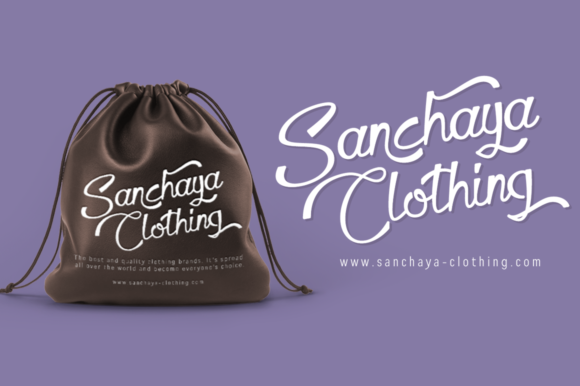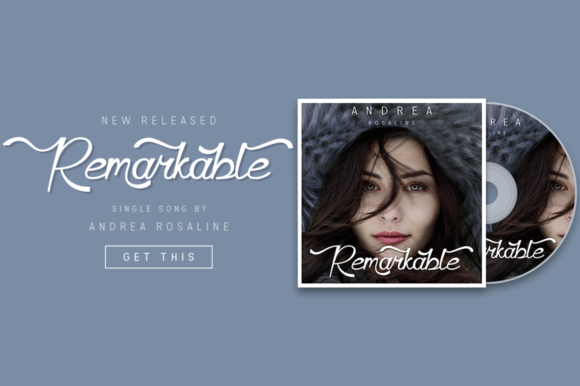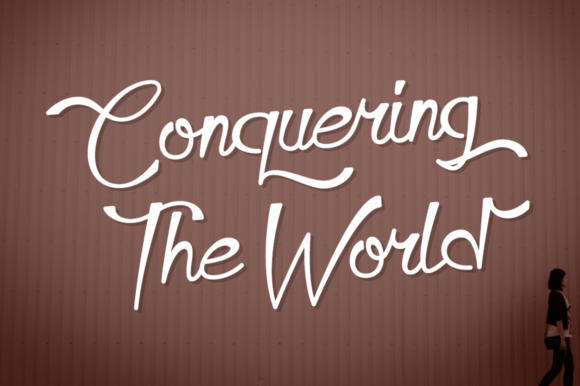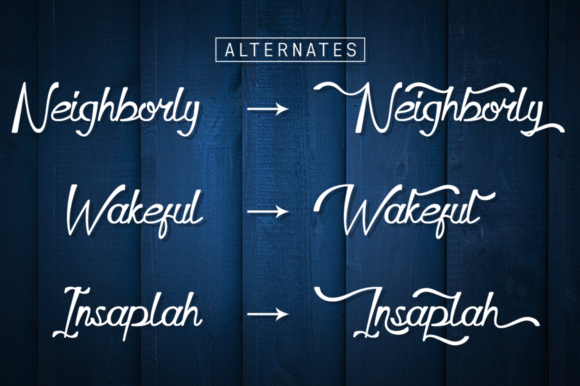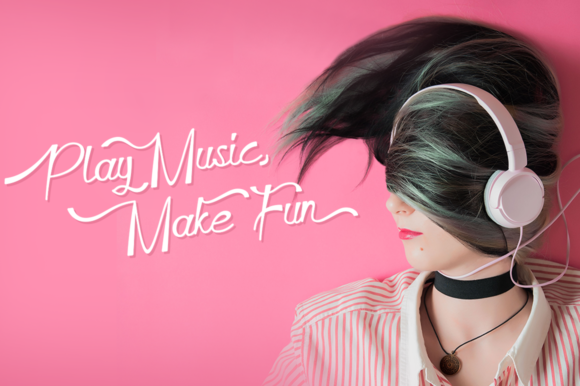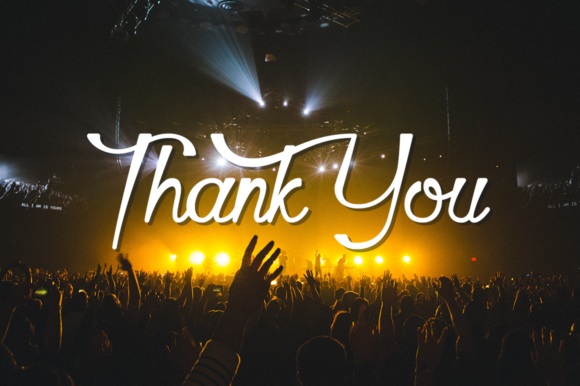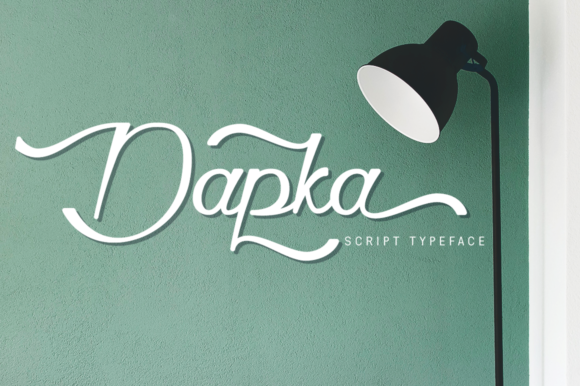
Dapka Font: Elevate Your Designs with a Unique Calligraphic Script
In the world of typography, a well-chosen font can make all the difference in the success of a design project. For designers and crafters looking to add a touch of elegance and sophistication to their work, the Dapka Font is an excellent choice. This beautiful calligraphic script offers a wide range of typographic forms that can be used in various design projects, from logos and branding to wedding designs, product packaging, and more.
What is Dapka Font?
Dapka Font is a unique calligraphic script that boasts stunning typographic forms. Its elegant and flowing lines make it perfect for designs that require a touch of sophistication and refinement. The font’s versatility allows it to be used in a wide variety of projects, including:
- Logos & branding: Create a lasting impression with a custom logo that showcases your brand’s personality.
- Wedding designs: Add a romantic touch to your wedding invitations, stationery, and decorations.
- Handwritten quotes: Bring your favorite quotes to life with beautiful, handwritten typography.
- Product packaging: Elevate your product’s packaging with a unique and eye-catching design.
- Headers: Create stunning headers for your website, blog, or social media channels.
- Posters: Design eye-catching posters that grab attention and convey your message.
- Merchandise: Add a personal touch to your merchandise, such as t-shirts, mugs, and tote bags.
- Social media: Enhance your social media presence with beautiful, custom graphics.
- Greeting cards: Create heartfelt greeting cards for special occasions.
Key Features of Dapka Font
The Dapka Font offers a range of features that make it an excellent choice for designers and crafters. Some of its key features include:
- Unique calligraphic script: Dapka Font boasts a distinctive and elegant calligraphic script that adds a touch of sophistication to any design.
- Wide range of typographic forms: The font offers a wide variety of typographic forms, allowing you to experiment with different styles and designs.
- Versatile: Dapka Font can be used in a wide range of design projects, from logos and branding to wedding designs and product packaging.
- Elegant and refined: The font’s elegant and refined lines make it perfect for designs that require a touch of sophistication.
Tips for Using Dapka Font
To get the most out of the Dapka Font, here are some tips to keep in mind:
- Experiment with different styles: Don’t be afraid to experiment with different styles and designs to find the one that works best for your project.
- Pair with other fonts: Dapka Font can be paired with other fonts to create a unique and eye-catching design.
- Use in combination with images: The font can be used in combination with images to create a stunning visual effect.
- Pay attention to spacing: Make sure to pay attention to spacing and kerning to ensure that your design looks polished and professional.
In conclusion, the Dapka Font is a unique and versatile calligraphic script that offers a wide range of typographic forms for various design projects. Its elegant and refined lines make it perfect for designs that require a touch of sophistication and refinement. With its wide range of uses and features, Dapka Font is an excellent choice for designers and crafters looking to elevate their designs and take their creativity to the next level.